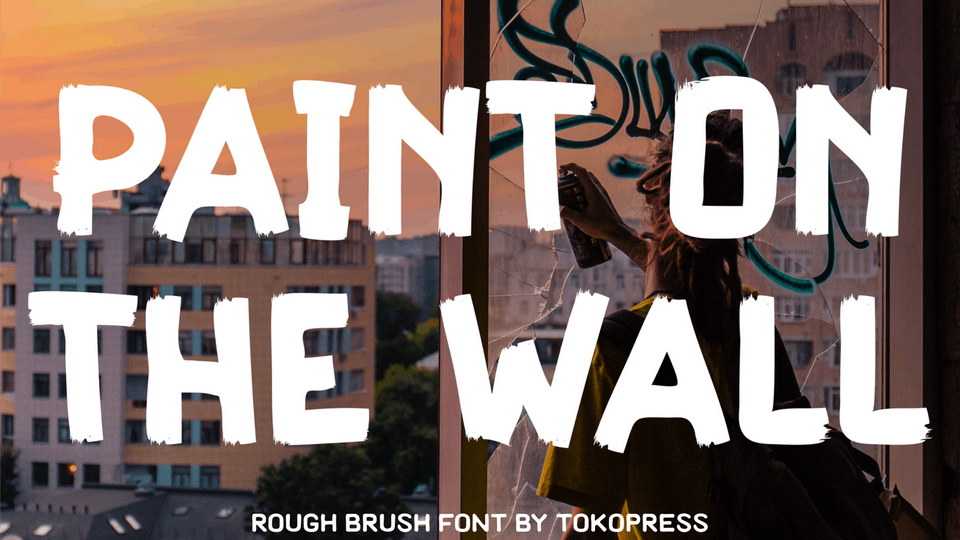
Download Paint on the Wall font, a rough brush typeface. Like a rough pain, being dragged to send the message. Paint on the Wall brings the edgy and harsh word into reality.